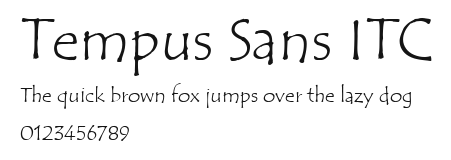
• Designer: Phill Grimshaw
• Manufacturer: International Typeface Corporation
• Description: Phill Grimshaw developed an interest in type design while studying for his master's degree in design at the Royal College of Art in London between 1972 and 1975. Grimshaw claims that every calligrapher's aspiration is to render Roman capitals perfectly with a pen, but admits that it is very difficult to do. For ITC Tempus™ he used a fountain pen on cheap, porous paper, and as you would expect, the ink bled. The resulting letterforms are classically based, but have rugged edges, so they deviate from the 'preciousness' of hand lettered romans. Released in 1996, ITC Tempus is a parody of a classical roman design. It is dictated by proportions, particularly those of capitals. The lowercase is somewhat loose and uninhibited. "Tempus Sans is just Tempus with the serifs surgically removed," Grimshaw says. "Yet the proportions of the characters work nicely." Because of its toughness, the typeface works best at larger point sizes, yet maintains its characters when set at small sizes. You might consider it a "punk roman" that works where a roman face is desired, but the fine edge is not.
Tempus Sans ITC.ttf is a modern, elegant sans-serif font designed for ultimate readability and visual harmony. Perfect for branding, headlines, web design, and print materials.